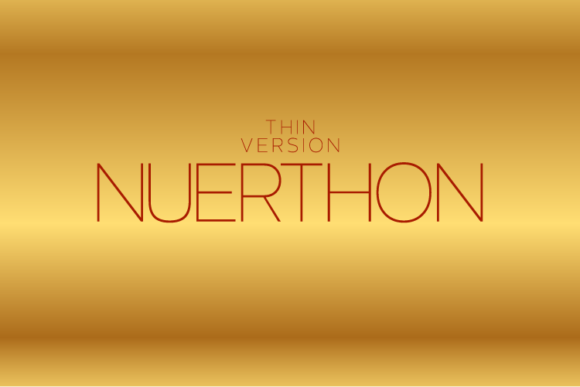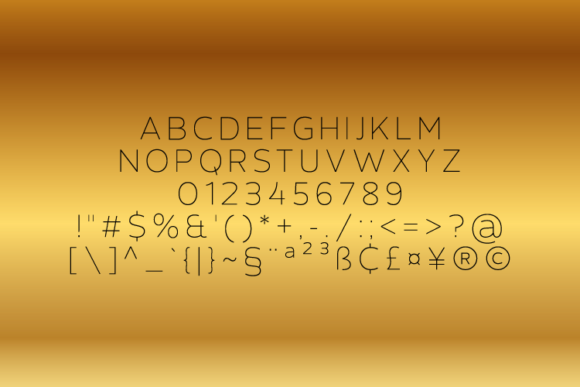
Nuerthon is a modern and sophisticated sans serif font with an undeniably clean feel. With its neat and beautiful arrangement of letters, this typeface will look outstanding in both formal and non-formal designs.